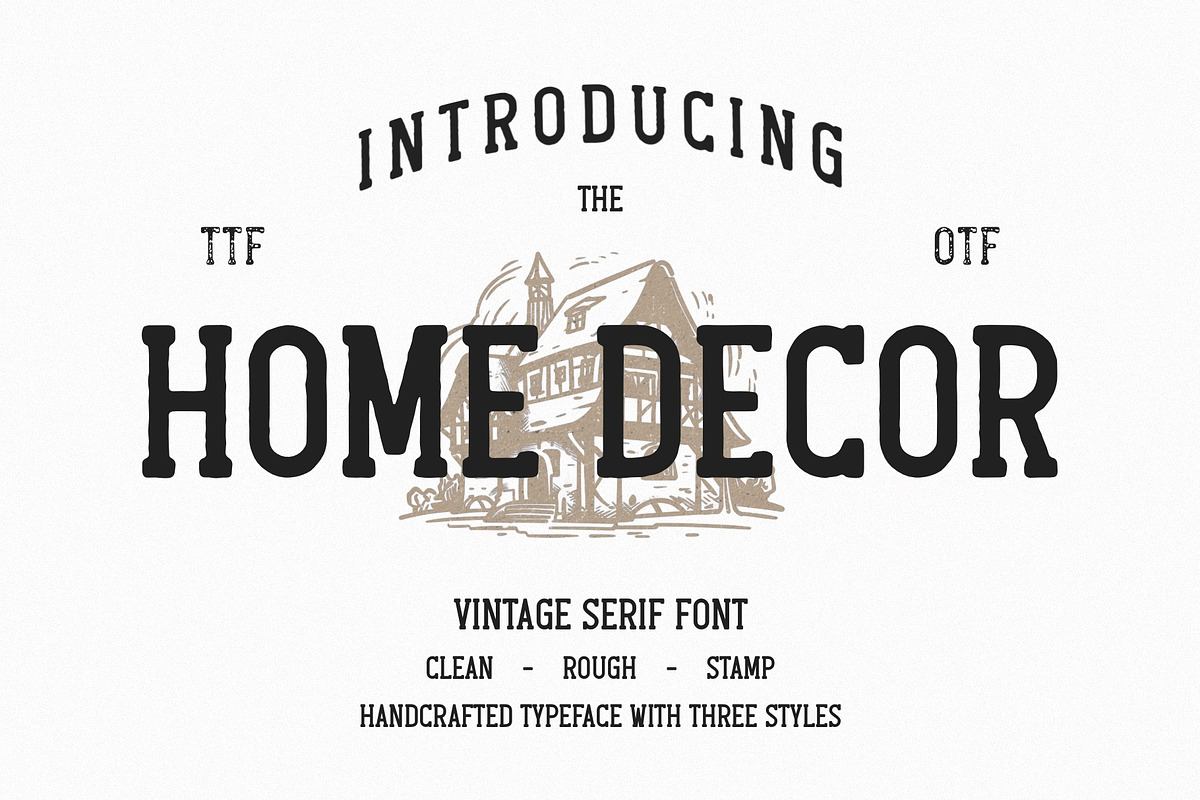
Home Decor - Vintage Slab Serif Font Free Download
Home Decor – Vintage Slab Serif Font Free Download is a warm and welcoming typeface inspired by retro signage, cozy interiors, and timeless craftsmanship. Please note, you are required to purchase this font for commercial use. It is available for free download for testing and personal projects only.
With its chunky serifs, balanced structure, and nostalgic charm, Home Decor is perfect for branding, farmhouse-style packaging, café menus, vintage logos, and lifestyle blogs. It delivers a bold yet friendly feel—ideal for designs that aim to evoke comfort and authenticity.